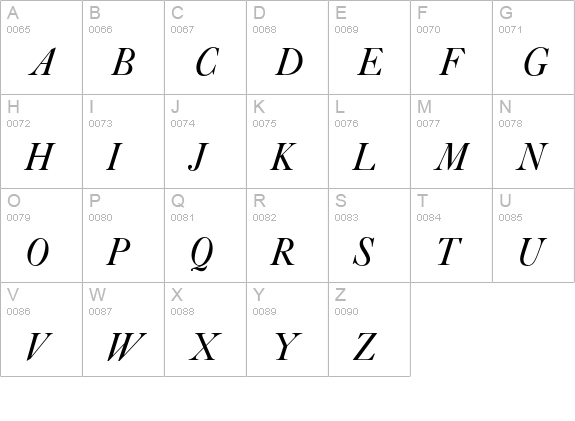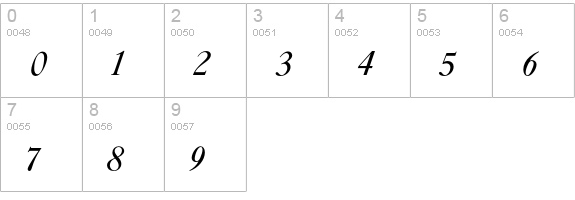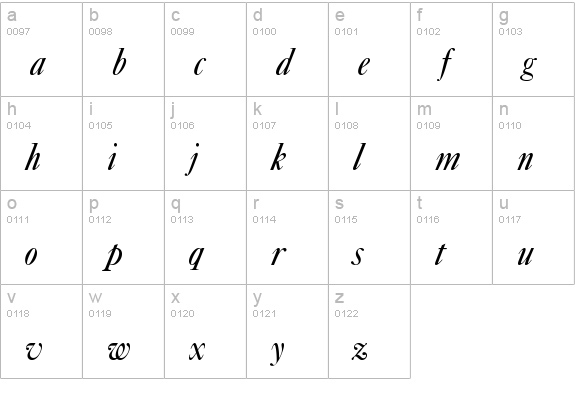
Caslon Italic Plain Font Details
Caslon Italic Plain is a distinctive, italic variant in the Caslon typeface family \xE2\x80\x94 well suited to design and typography projects.
Caslon Italic Plain is a classic and elegant font that exudes sophistication and style. With its graceful slanted design, this font is perfect for adding a touch of refinement to any project. The flowing curves and delicate serifs of Caslon Italic Plain make it ideal for use in invitations, branding, and editorial design. One of the best features of Caslon Italic Plain is that it is available for free download at FontsMarket.com. This means that you can easily access this beautiful font and incorporate it into your creative projects without any cost. Whether you are a professional designer or a hobbyist, Caslon Italic Plain offers a timeless and versatile option for your typography needs. Download Caslon Italic Plain today and elevate your designs with this timeless and elegant font.